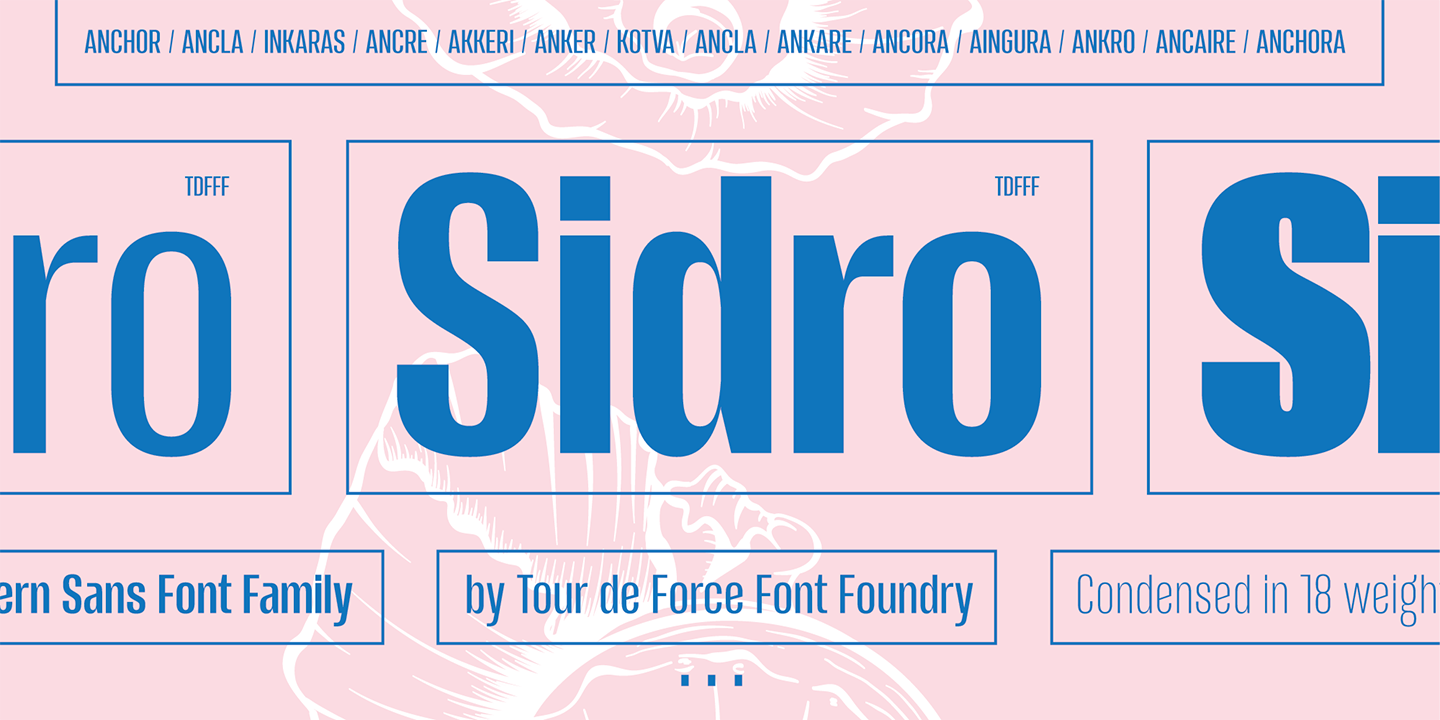
Sidro
Designed by Dusan Jelesijevic, Sidro is a sans serif font family. This typeface has nine styles and was published by Tour de Force Font Foundry.
Condensed sans family Sidro comes in 9 weights – from extreme light Thin to dark Heavy.
Compact, solid and still new and recognizable, Sidro is designed with purpose to serve in every project.
It is tightly spaced family which is ideal for space saving in variety projects – from posters, packages and branding in general, to websites, editorial usage and applications.
Sidro comes with Small Caps, Fractions and one Stylistic Set in extended Latin character map.